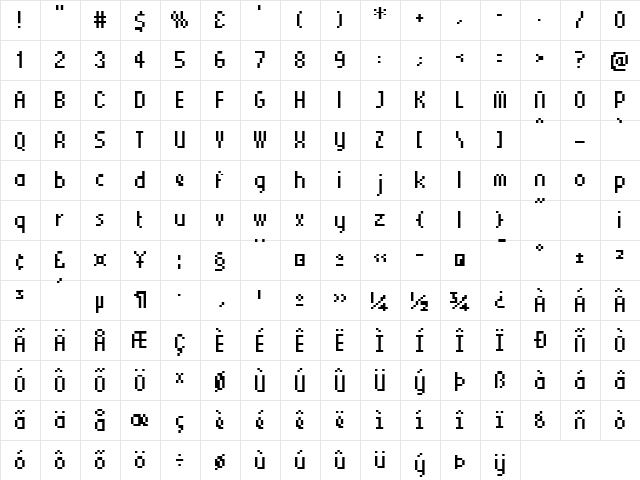
CellularTall Regular
Design Context for CellularTall Typeface
CellularTall offers clean, dependable letterforms without strong stylistic allegiance, making it a practical choice for designers who need flexibility.